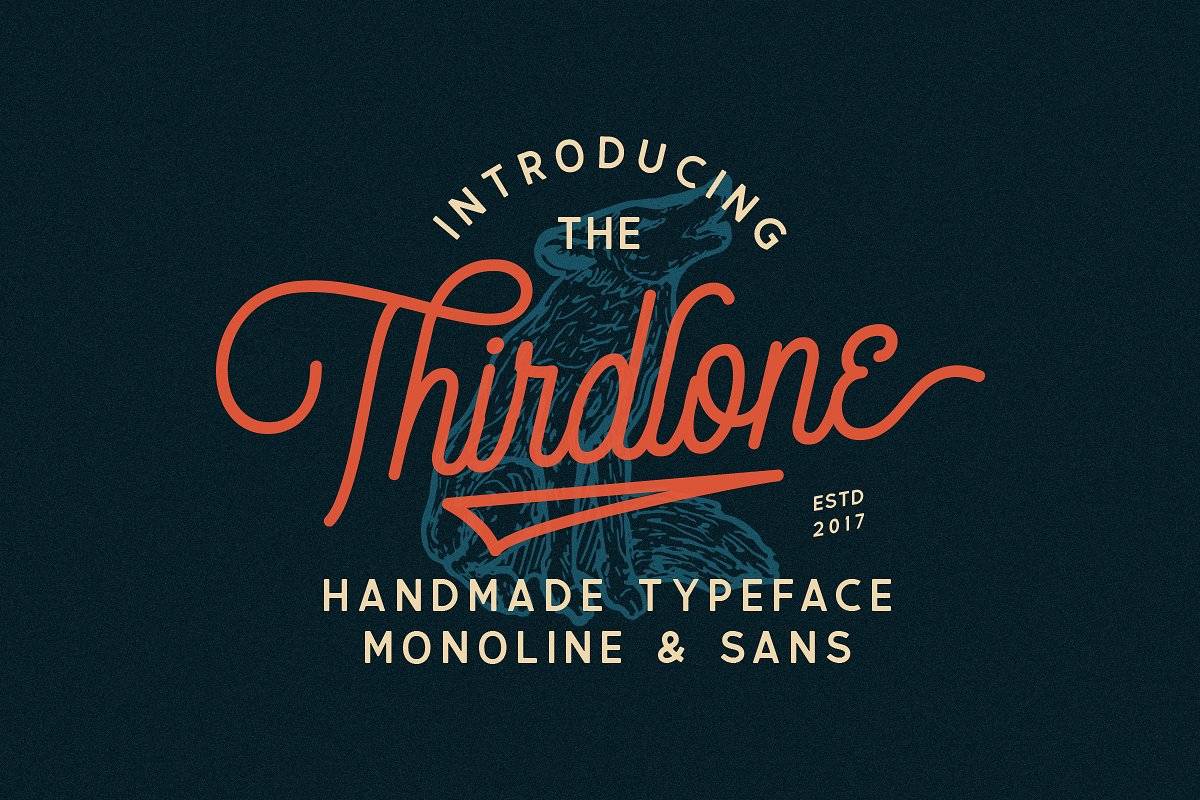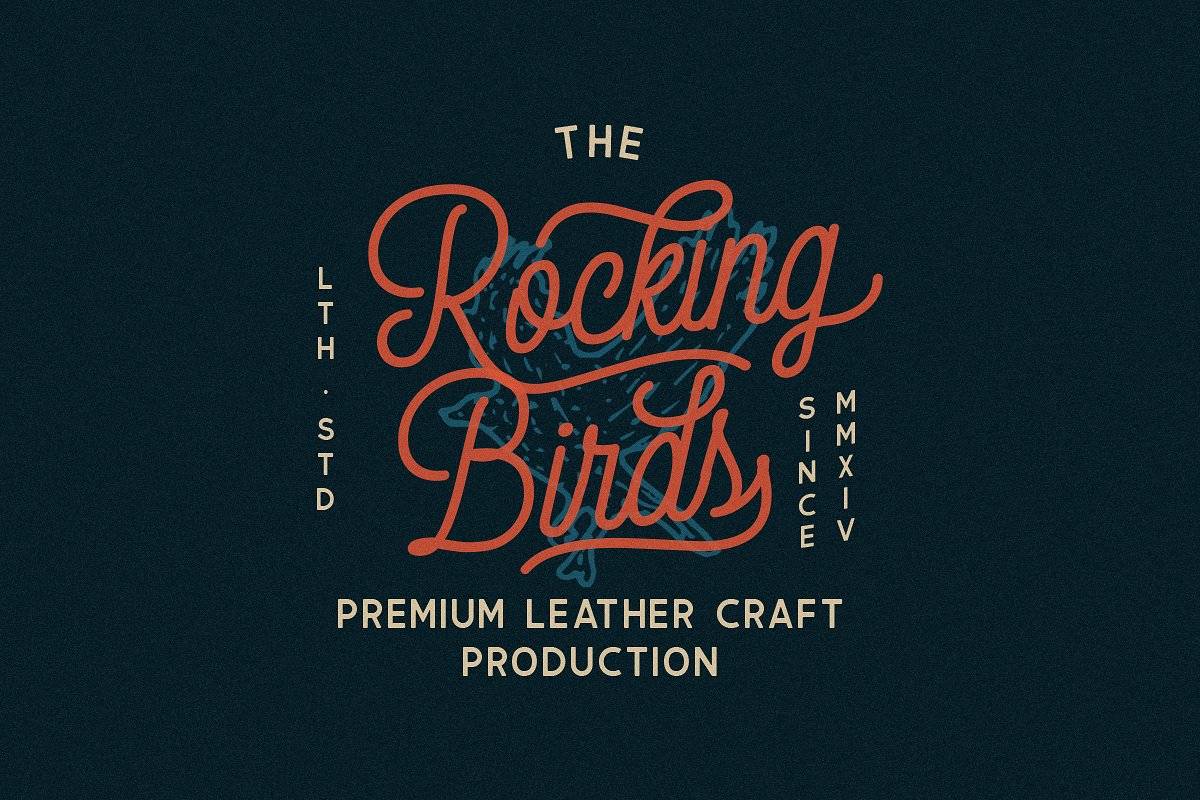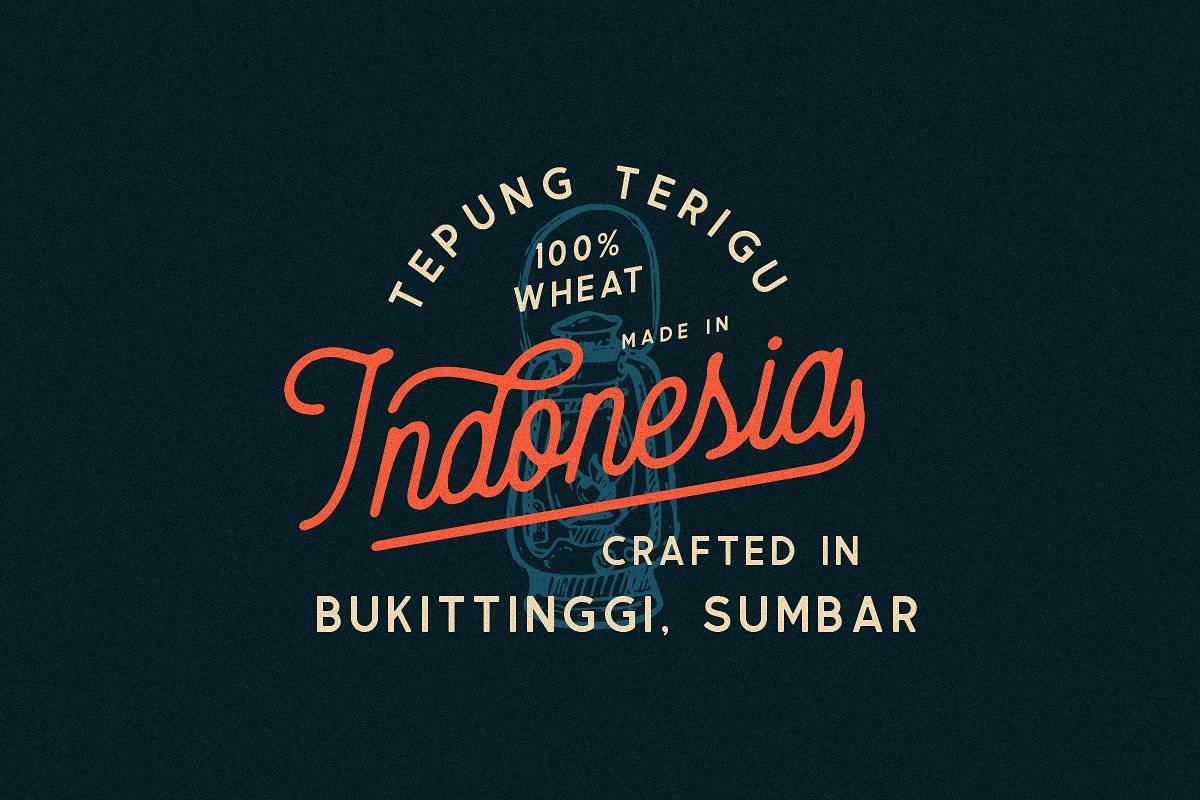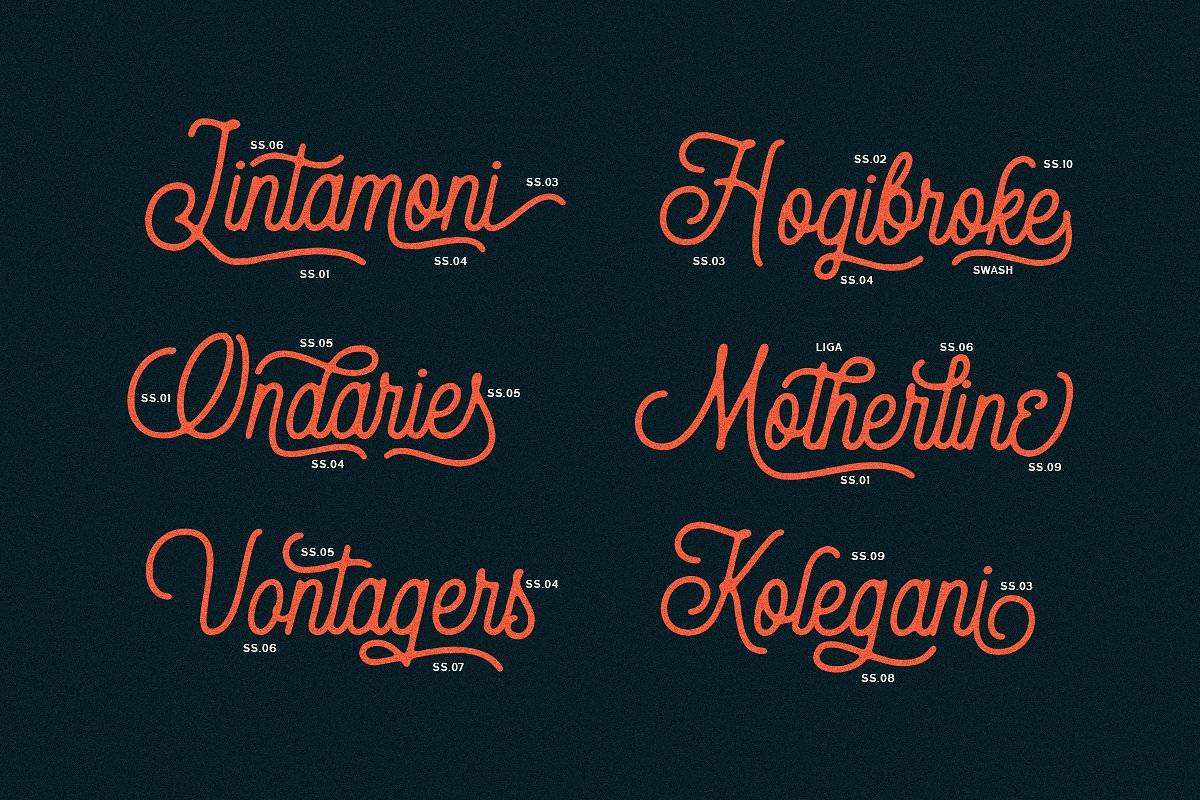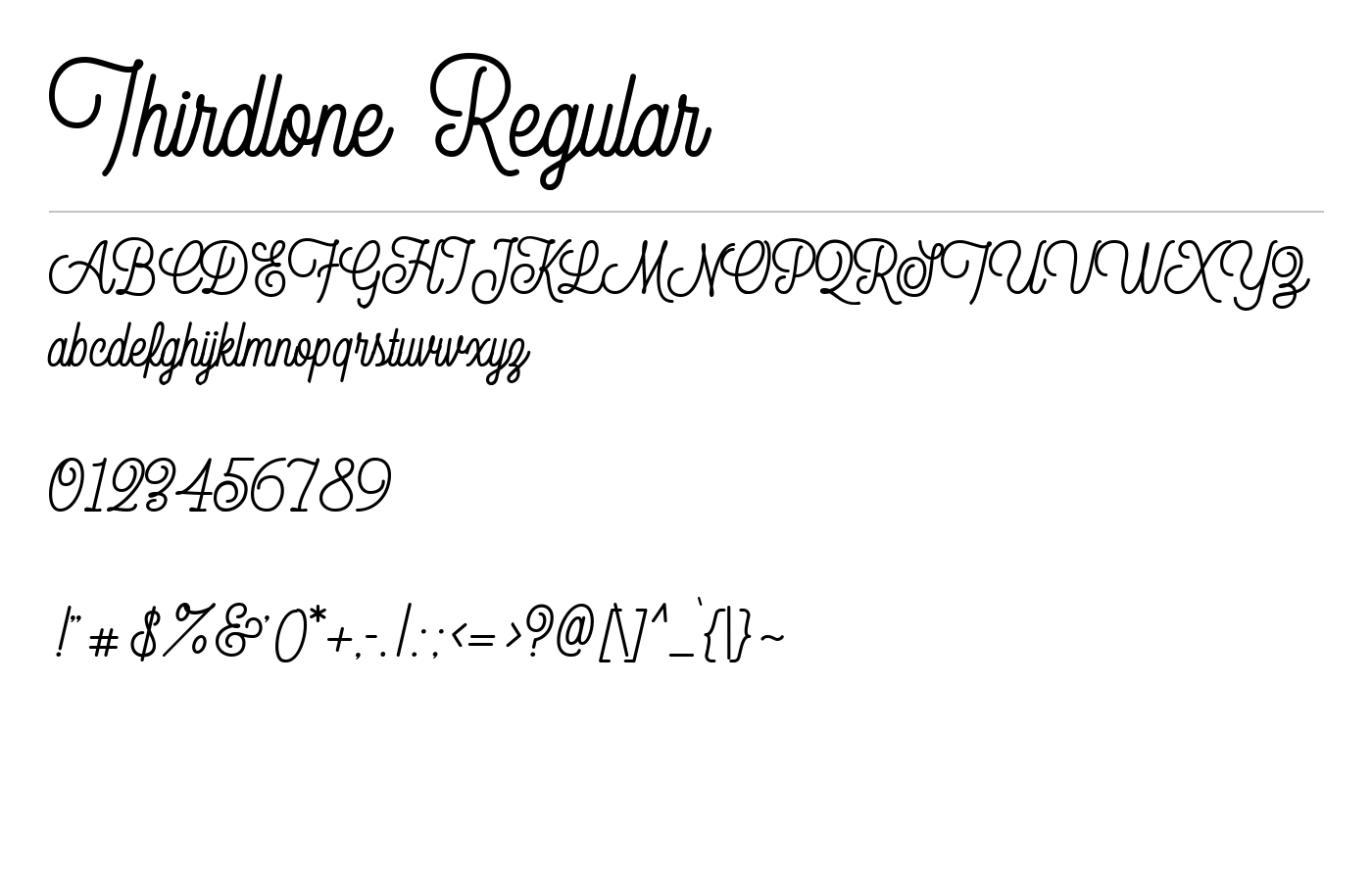
Thirdlone is a delicate script font with a smooth, flowing style that feels both elegant and approachable. Its thin strokes, consistent weight, and slightly condensed letterforms make it ideal for use in sophisticated branding, invitations, and creative headlines where a touch of charm and refinement is desired. This font works beautifully for projects that want to convey a graceful, personal, and stylish vibe.
Thirdlone Font
About Thirdlone Font
| Font family | Thirdlone Font |